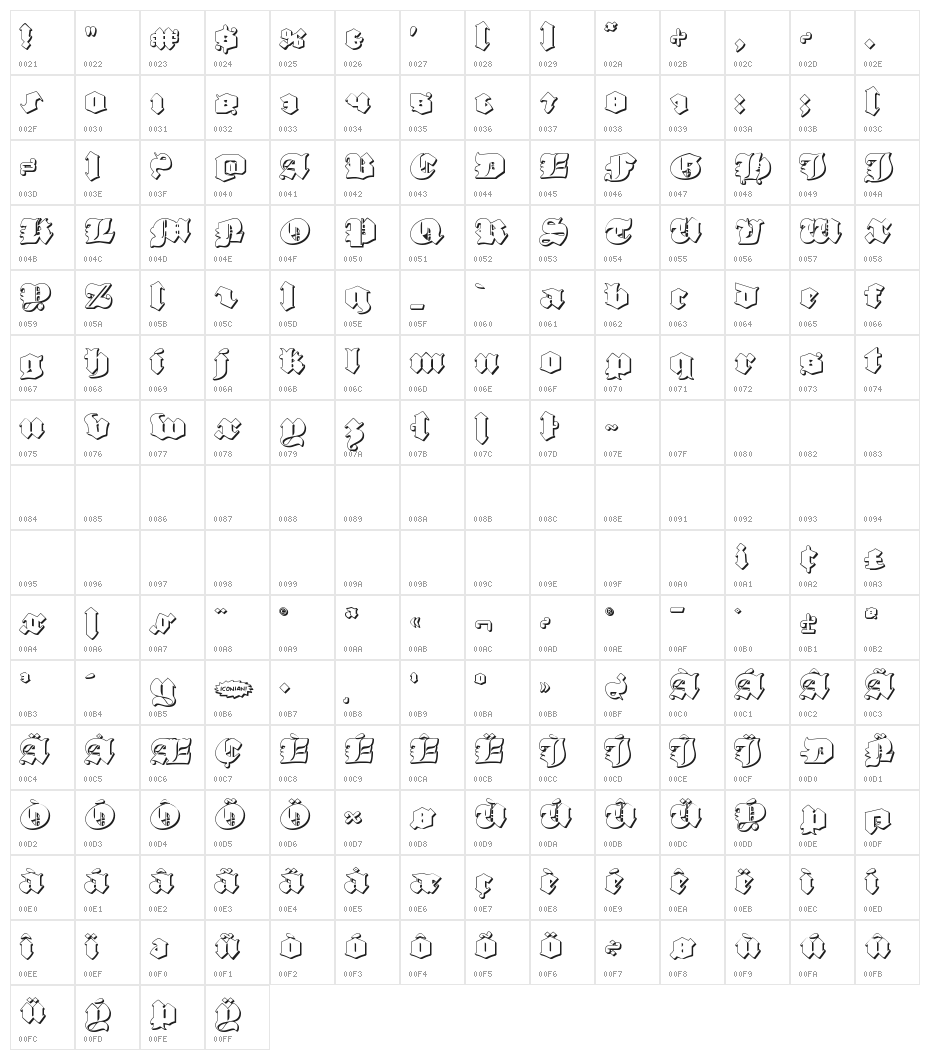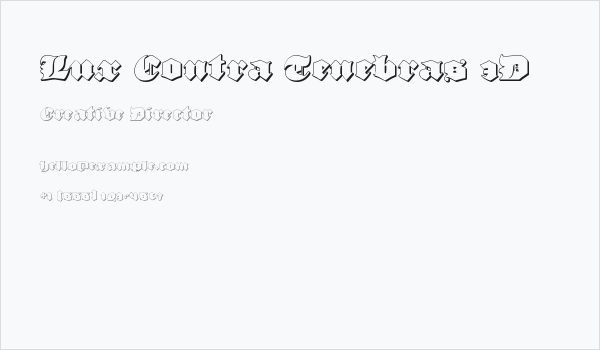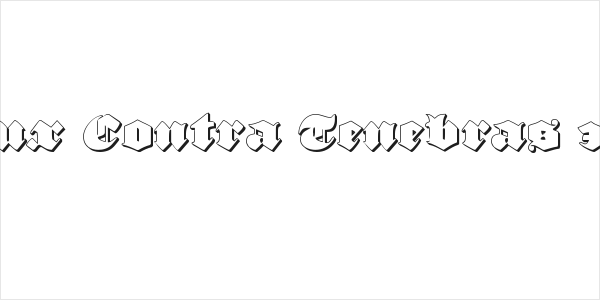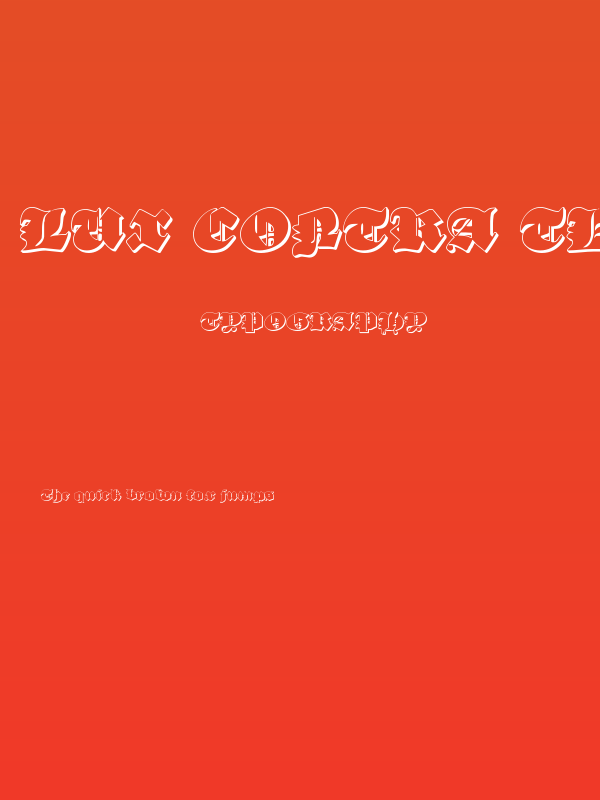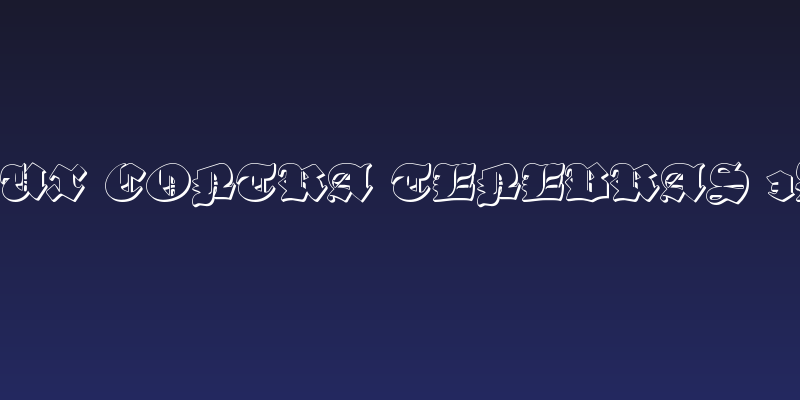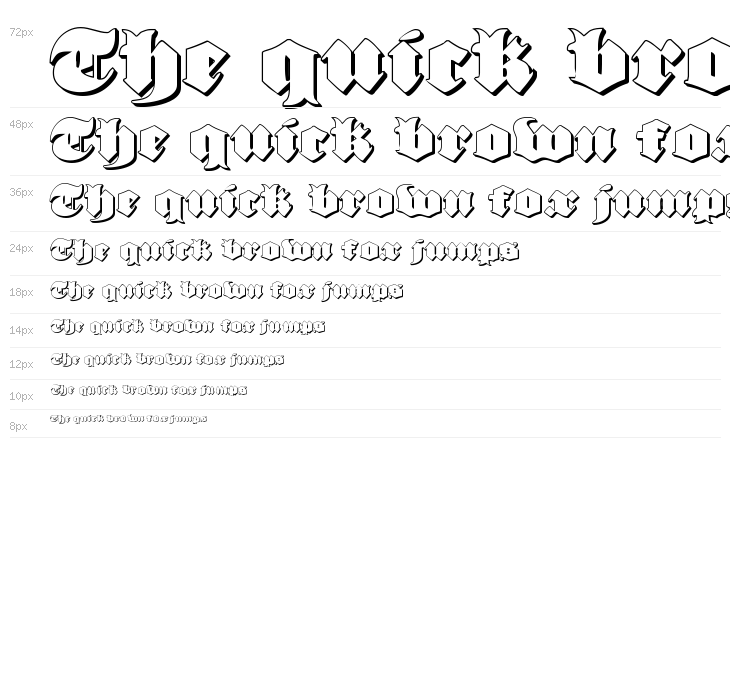
Lux Contra Tenebras 3D Font
Lux Contra Tenebras 3D Description
This font features a bold, dramatic style with a strong 3D effect, reminiscent of classic Blackletter typography. The characters are adorned with intricate details and sharp edges, giving them a gothic and medieval appearance. The uppercase letters are particularly ornate, with flourishes and embellishments that enhance their visual impact. The lowercase letters maintain the same boldness, ensuring consistency across the typeface. Numbers and special characters are equally stylized, making them suitable for thematic designs. The overall design is striking and commands attention, making it ideal for projects that require a touch of historical elegance.
Overall StyleGothic, Medieval
Use CaseHeadlines, Logos, Decorative
Proposed ProjectsIdeal for book covers, posters, logos, and any design requiring a historical or gothic theme.